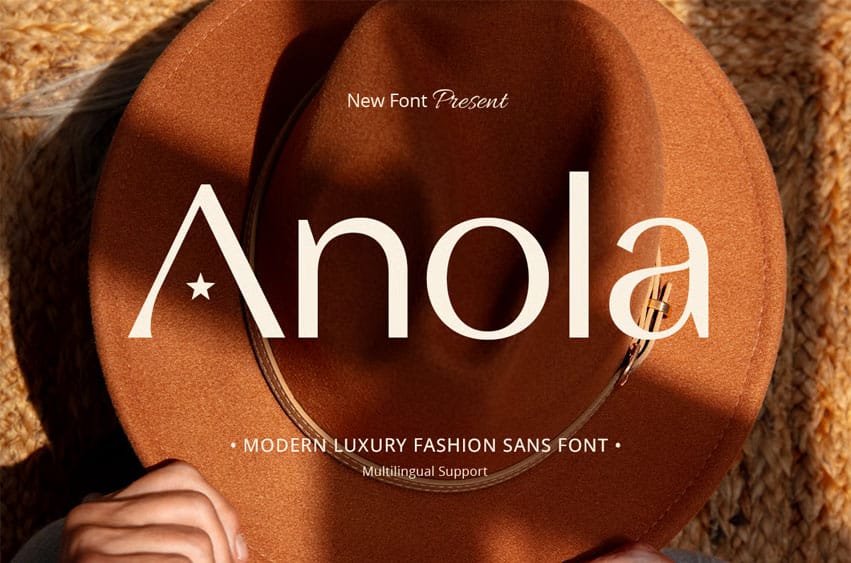
Anola Font Modern Luxury Fashion Sans Serif Font is an elegant typeface crafted to embody sophistication, refinement, and contemporary luxury. Inspired by premium branding, high-end aesthetics, and modern editorial design, Anola is designed for projects that require a graceful and distinctive visual presence.
With its clean sans serif construction, refined proportions, and elegant detailing, Anola creates a polished typographic experience that feels both modern and timeless. The font balances minimalism with luxury, making it an excellent choice for premium branding and sophisticated visual communication.
Anola Font Features
- Character Set: Uppercase, lowercase, numbers, symbols, and punctuation
- Modern luxury sans serif letterforms with elegant and refined styling
- OpenType features ready to enhance your design needs
Whether you are creating a luxury brand identity, designing an elegant logo, or developing a premium visual experience, Anola delivers sophistication, clarity, and contemporary elegance in every letter.